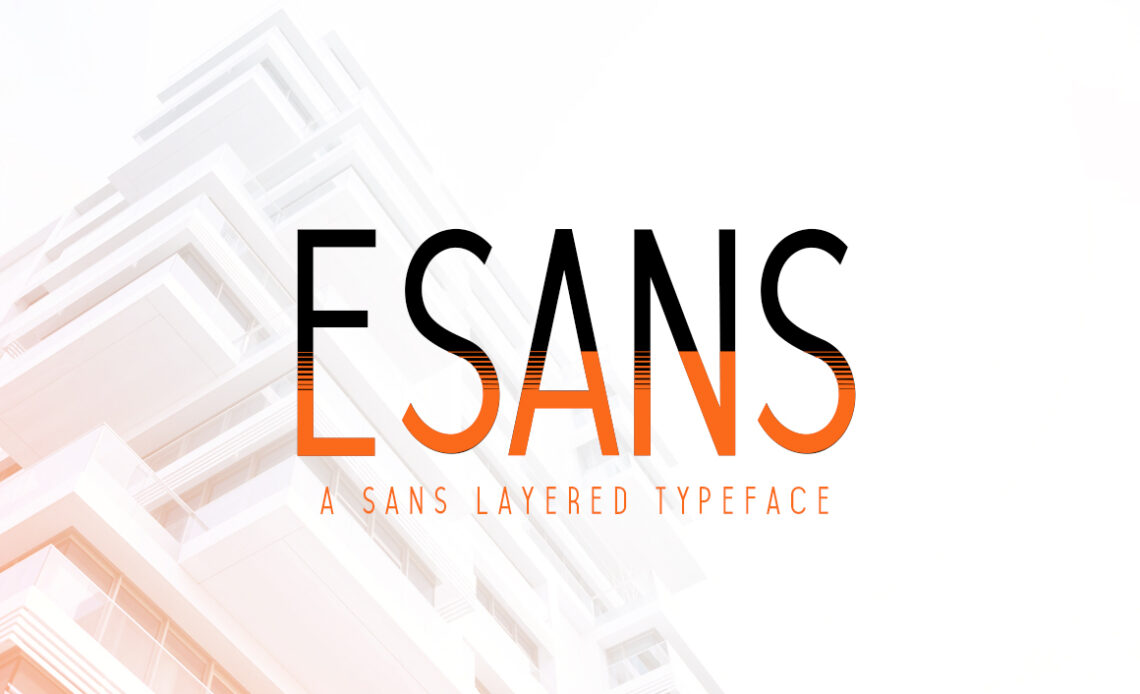
In a world where fonts hold the power to evoke emotions, captivate audiences, and imprint lasting impressions, Esans Font emerges as a visionary masterpiece, designed to transform your creations into captivating works of art. This groundbreaking sans serif font, crafted by the visionary Khurasan, transcends the ordinary, propelling you into a realm of boundless creativity and unparalleled visual impact.
Esans Font possesses an inherent athleticism and sporty flair, making it the perfect companion for projects that exude energy, dynamism, and youthful exuberance. Imagine your designs leaping off the screen, pulsating with vitality, and resonating with the vibrant energy of this remarkable font. Whether you're crafting logos that demand attention, posters that ignite the imagination, or social media graphics that spark engagement, Esans Font is your trusted ally, ready to elevate your work to extraordinary heights.
As you delve into the depths of this font's personality, you'll discover a mesmerizing duality that harmonizes classic elegance with a contemporary edge. Its clean lines and crisp edges evoke a sense of sophistication, while its dynamic structure and playful curves infuse your designs with a touch of whimsy and intrigue. Esans Font possesses an uncanny ability to adapt to diverse settings, seamlessly flowing from formal business documents to casual handwritten notes, from eye-catching headlines to captivating body text.
With Esans Font at your disposal, you'll embark on a creative journey unlike any other. Unlock the gateway to imagination, where your designs transform into captivating stories, where words dance with grace and meaning leaps off the page. Embrace the transformative power of this font and witness the remarkable evolution of your creative endeavors.